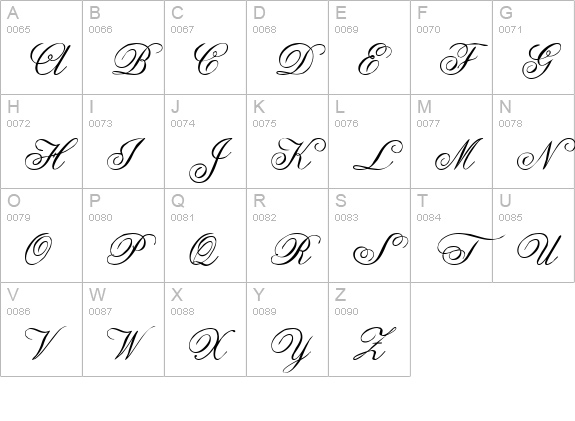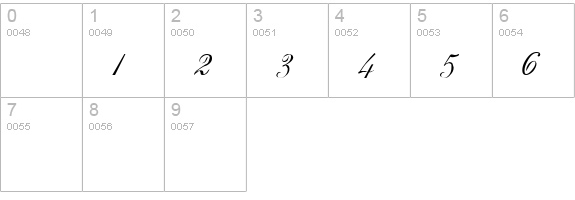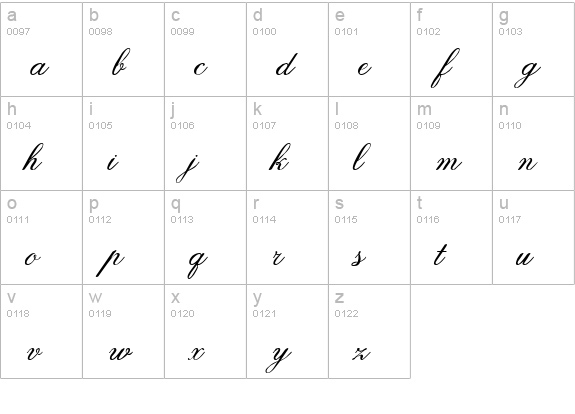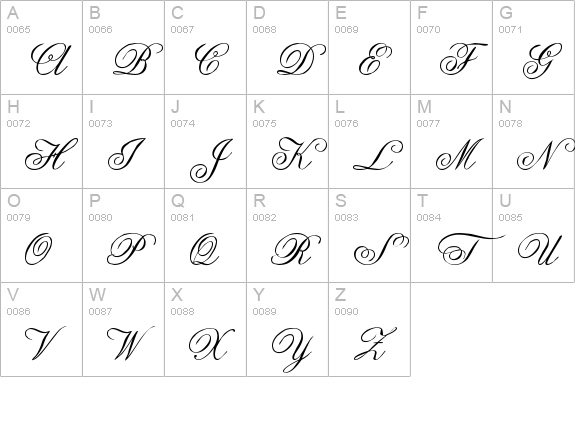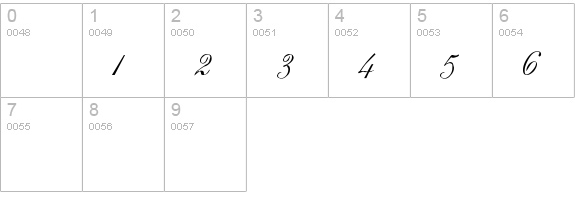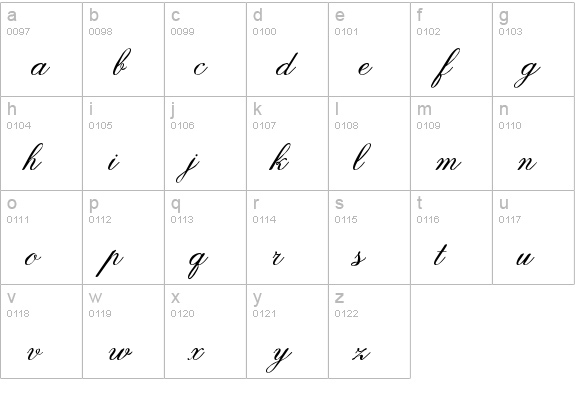
Anglia Script is a stylish and elegant font that exudes sophistication and charm. Its flowing handwritten style adds a touch of personality to any project, making it perfect for invitations, cards, and other design projects that require a touch of elegance. This versatile font features beautiful cursive lettering with a modern twist, making it suitable for both formal and casual designs. And the best part? Anglia Script is available for free download at FontsMarket.com. So you can easily add this beautiful font to your collection without breaking the bank. Whether you're designing wedding invitations, creating branding materials, or simply adding a touch of flair to your projects, Anglia Script is sure to impress with its timeless beauty and effortless charm. Download it today and elevate your designs with this stunning script font.